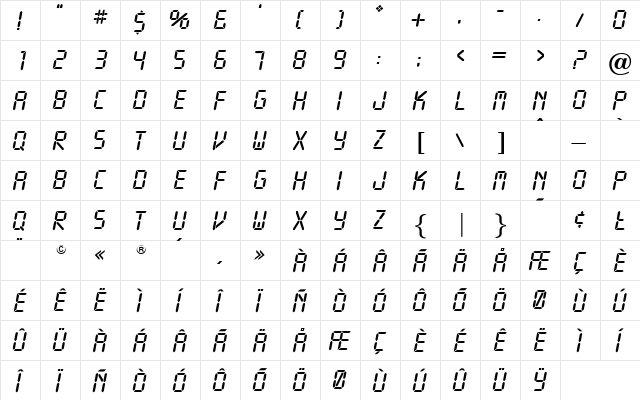
OPTICalculator Medium
Design Context for OPTICalculator Typeface
OPTICalculator takes a measured approach to typography — its balanced proportions and neutral character make it a reliable workhorse for both digital and print work.